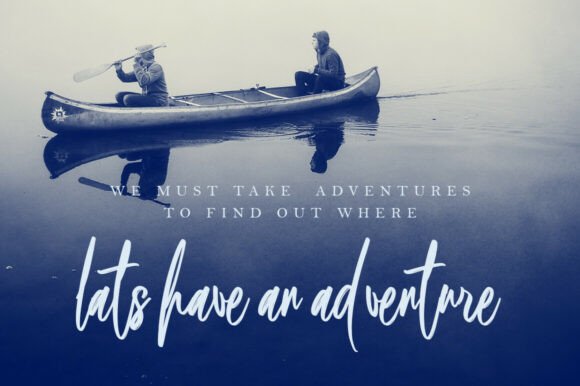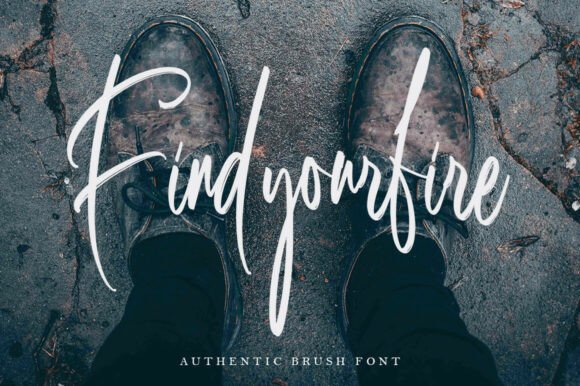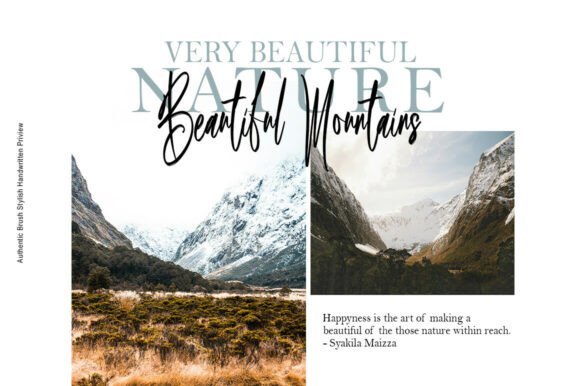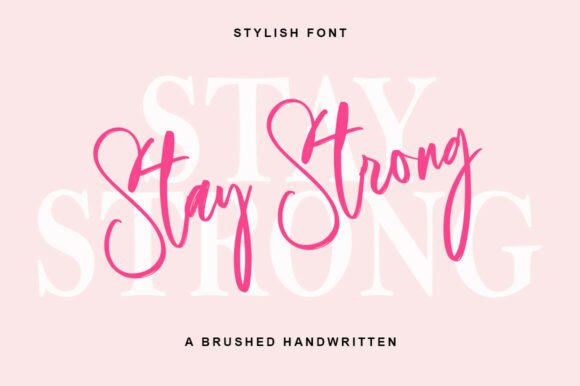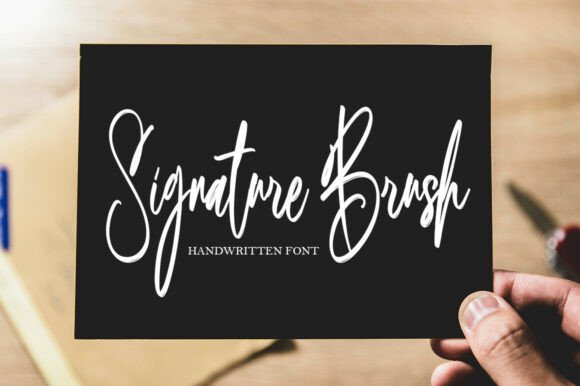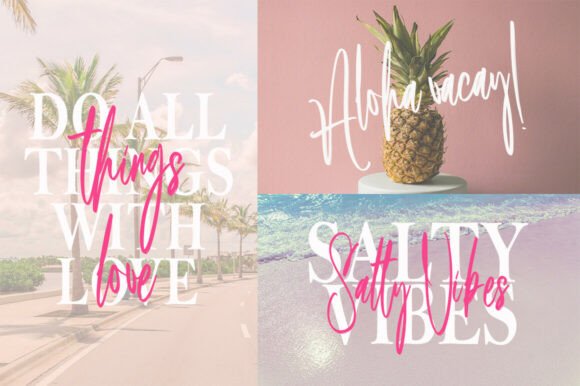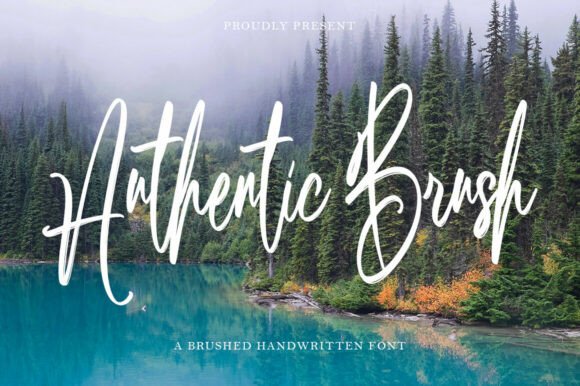
Introducing Authentic Brush Font: Elevate Your Designs with a Natural, Handcrafted Feel
In the world of typography, few fonts manage to capture the essence of handcrafted elegance while maintaining a contemporary design sensibility. Authentic Brush Font is one such gem that has been making waves among designers and crafters alike. This beautiful, textured handwritten brush font is not just a typeface; it’s an experience that brings a natural, organic feel to your projects. Whether you’re working on branding, packaging, stationery, or digital media, Authentic Brush Font is a versatile choice that can elevate your designs to new heights.
The Charm of Authentic Brush Font
Authentic Brush Font stands out for its unique texture and fluid strokes, reminiscent of traditional brush calligraphy. Each letter is crafted with precision and a keen eye for detail, ensuring that the font exudes a sense of authenticity and craftsmanship. The natural variations in line width and the subtle imperfections inherent in hand-brushed strokes give the font a warm, inviting feel that is hard to replicate with digital fonts alone.
Key Features of Authentic Brush Font
• Contemporary Design Sensibility: While the font has a distinctly handcrafted feel, its design is firmly rooted in contemporary aesthetics. This makes it incredibly versatile and suitable for a wide range of applications, from modern branding to more traditional craft projects.
• Natural Texture: The textured nature of Authentic Brush Font gives it a unique depth and character. This texture blends beautifully with various design elements, adding an organic feel to your work.
• Handwritten Elegance: The elegance of handwritten brush strokes is captured beautifully in this font. It brings a personal touch to any project, making it stand out in a sea of more uniform digital typefaces.
• Wide Range of Applications: From luxury branding and high-end packaging to DIY craft projects and digital media, Authentic Brush Font can be used in a multitude of contexts. Its flexibility makes it a valuable addition to any designer’s toolkit.
Using Authentic Brush Font in Your Designs
• Pair with Contrasting Fonts: For maximum impact, pair Authentic Brush Font with simpler, sans-serif fonts. This contrast will highlight the unique qualities of the brush font and create visual interest.
• Experiment with Colors: The natural texture of the font lends itself well to a variety of color schemes. Experiment with earth tones to enhance its organic feel or use bold colors to make it pop.
• Play with Textures: Don’t be afraid to mix textures. Combining the font with other textured elements can create a rich, layered look that adds depth to your designs.
Why Designers and Crafters Love Authentic Brush Font
Designers and crafters appreciate Authentic Brush Font for its ability to add a personal, handcrafted touch to their work. In an era where digital designs can sometimes feel cold and impersonal, this font offers a refreshing alternative. It allows creators to infuse their projects with warmth, personality, and a sense of craftsmanship.
Moreover, the font’s contemporary design ensures that it remains relevant and stylish across various platforms and design trends. Whether you’re creating bespoke stationery, unique packaging, or engaging digital content, Authentic Brush Font can help you connect with your audience on a more personal level.
Font Name Authentic Brush Font
Author Diorde Studio
Authentic Brush Font is more than just a typeface; it’s a tool for designers and crafters to imbue their projects with a natural, handcrafted feel. Its contemporary design sensibility, combined with its textured, handwritten elegance, makes it a versatile and valuable asset for anyone looking to add a personal touch to their work. With Authentic Brush Font, you can create designs that are not only visually stunning but also rich in character and personality.
So, if you’re looking to elevate your designs with a font that speaks to the soul of handcrafted elegance and contemporary style, look no further than Authentic Brush Font. It’s an authentic addition to any creative project, promising to leave a lasting impression on your audience.